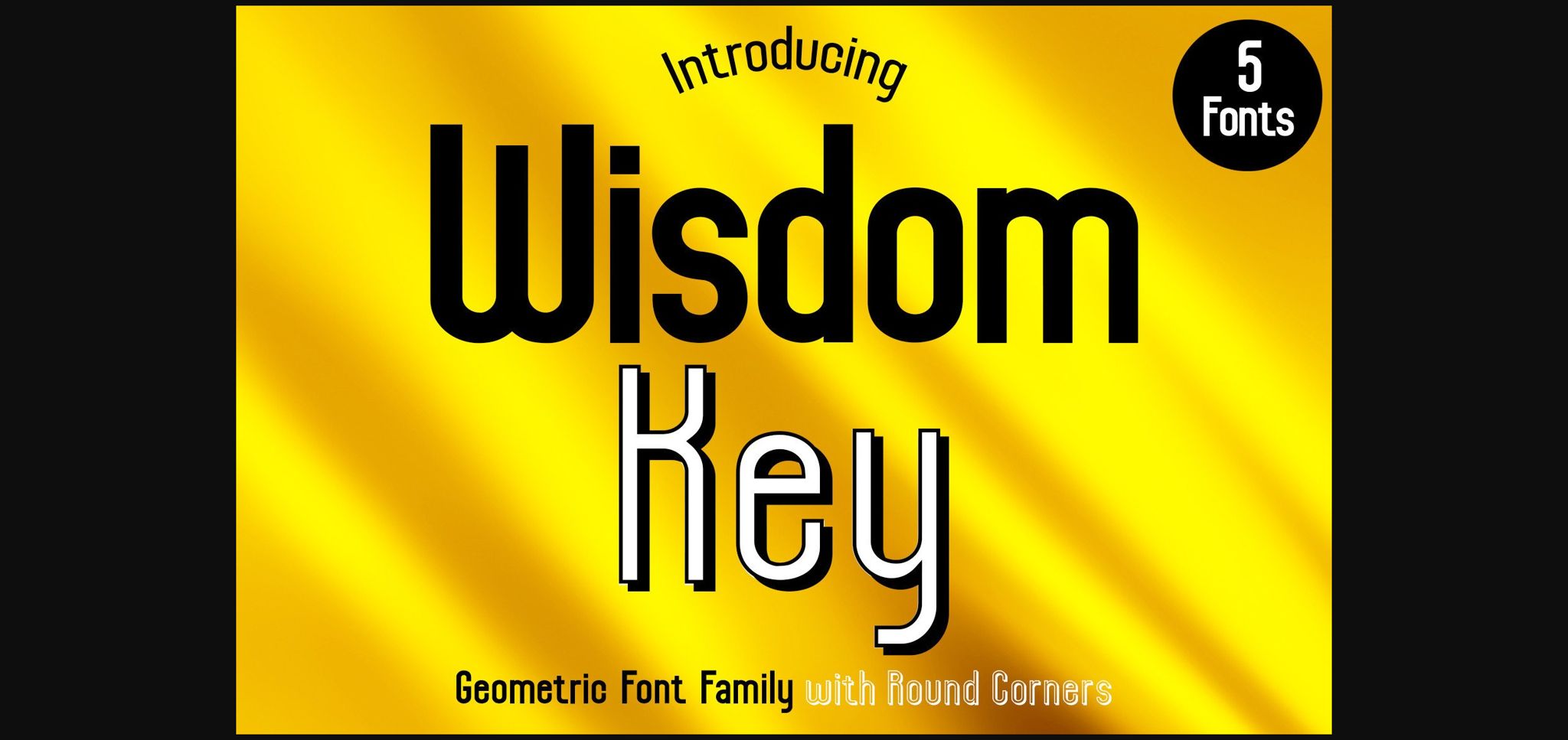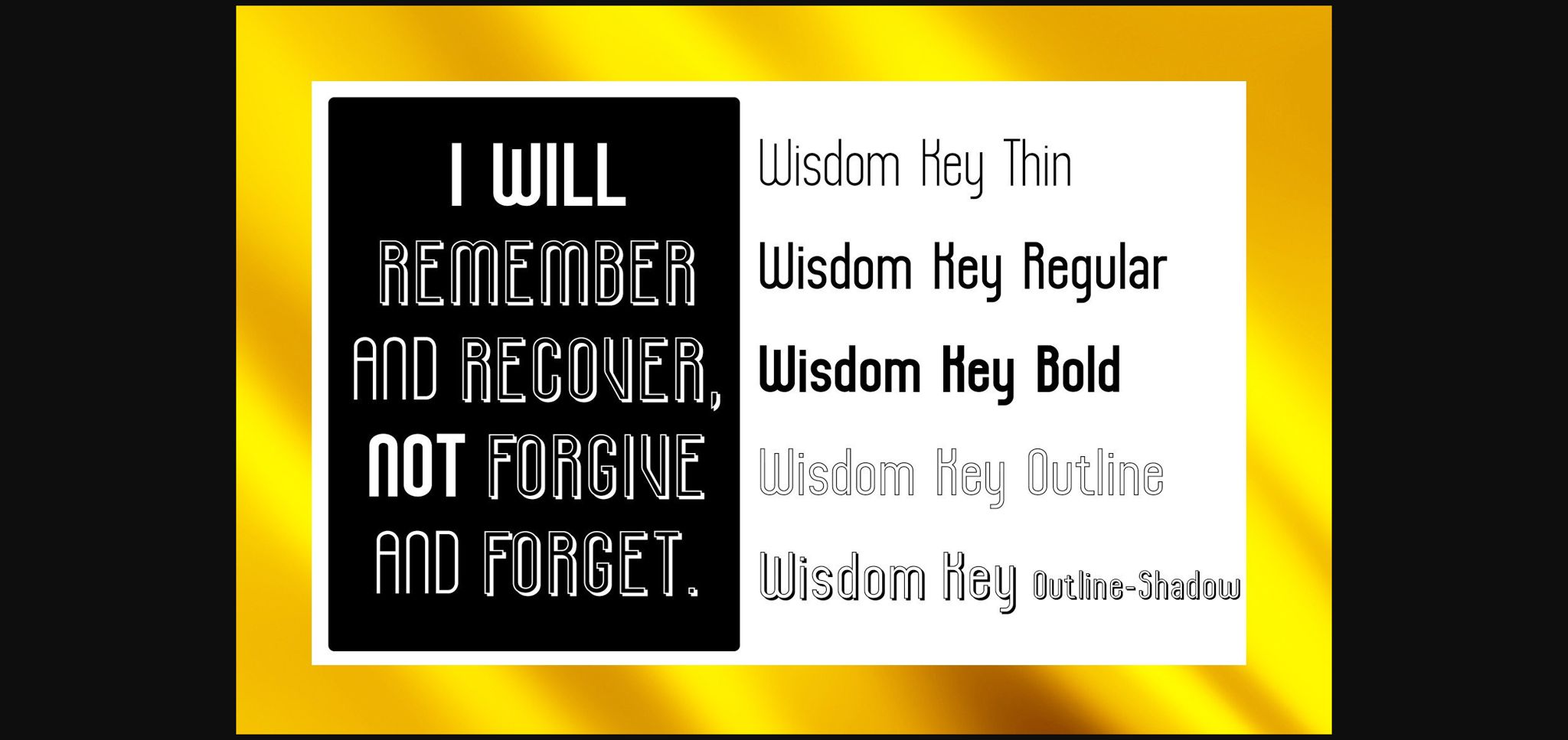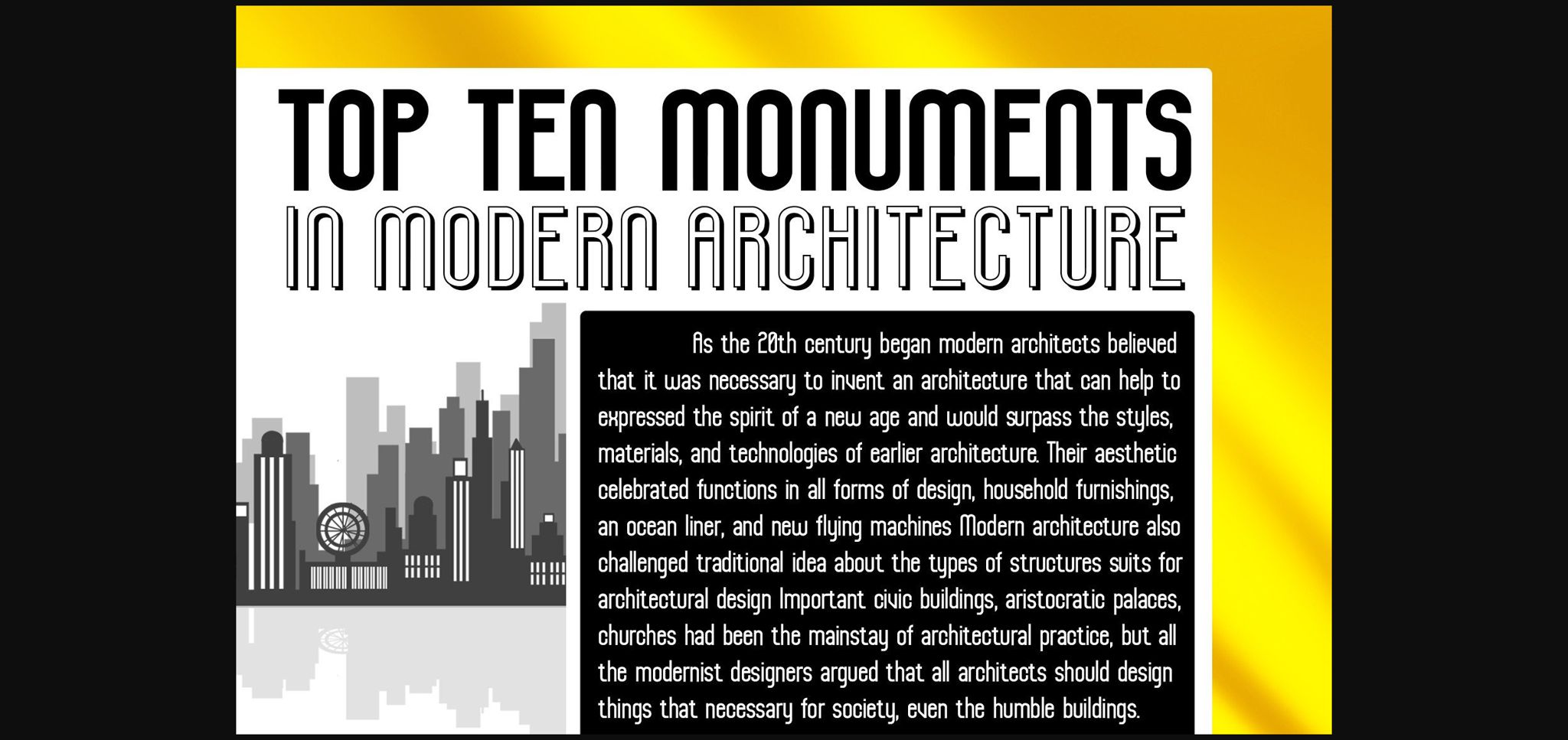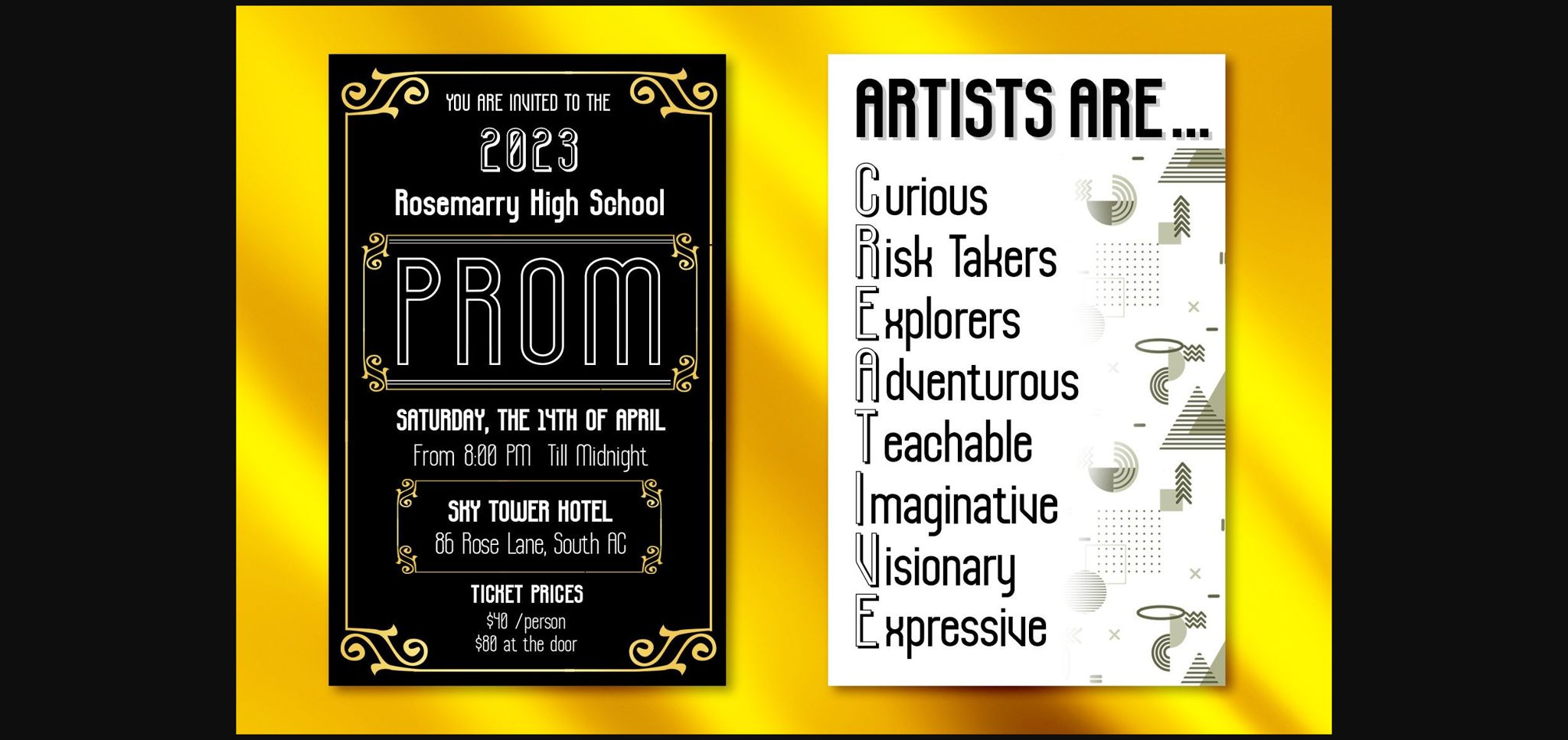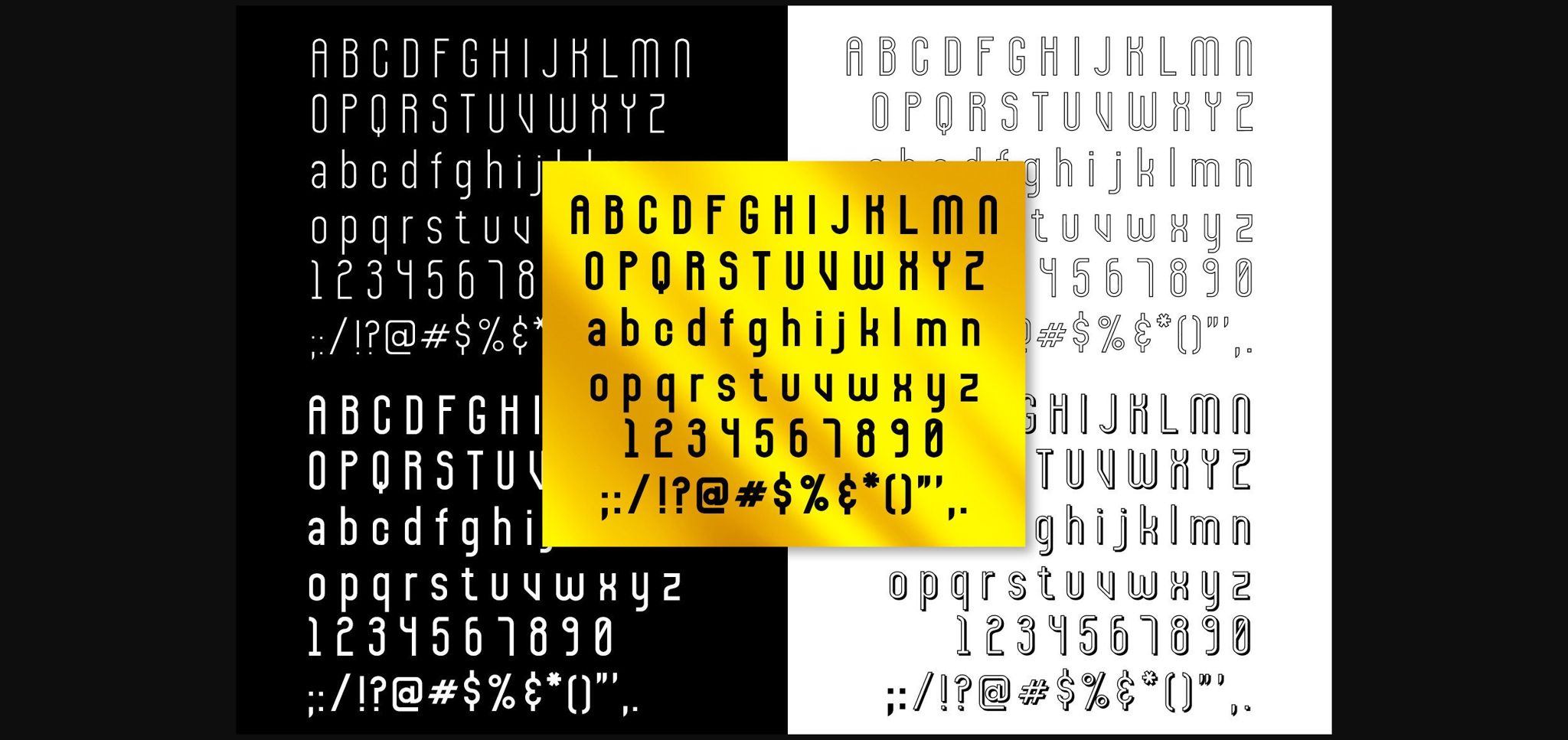
HomeSans Serif FontsWisdom Key Font Sans Serif Fonts Wisdom Key Font FacebookXPinterestWhatsApp 1 of 7 ... Wisdom Key Font Poster 2... Wisdom Key Font Poster 3... Wisdom Key Font Poster 4... Wisdom Key Font Poster 5... Wisdom Key Font Poster 6... Wisdom Key Font Poster 7... About Wisdom Key Font Wisdom Key is a geometric sans serif font with round corners. Its neat, balanced, and clean shape is suitable for a wide pool of design ideas. DOWNLOAD NOW People also explored Rolling Madness Font Cimero Pro Font Night Happy Font Christmas Gnome Font Cute Dog Font Rofato Font Strong Table Font Travellig Font Caroline Display Font 479 0 TagsWisdom Key Font Previous articleSaikon FontNext articleThe Lazidag Font LEAVE A REPLY Cancel reply Comment: Please enter your comment! Name:* Please enter your name here Email:* You have entered an incorrect email address! Please enter your email address here Website: Save my name, email, and website in this browser for the next time I comment. Personal Use Free Dead Block Personal Use Free Read more about this font ABC Personal Use Free Read more about this font Kilsonburg Personal Use Free Read more about this font Coconote Personal Use Free Read more about this font BLOG Exploring Font Trends Shaping Communication in the Digital Era Fonts, like all design elements, are subject to trends. They play a crucial role in communicating a brand's personality,... Transform Your Website: Elevate Your Typography with 7 Best Web Font Generators To increase your work productivity, choose the most readable fonts. Best Fonts for T-Shirt Design – Top 2025 Picks